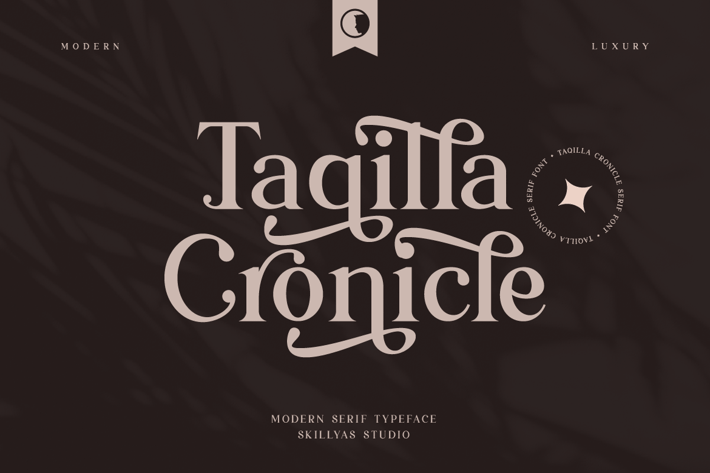
Taqilla Cronicle Playful Serif Font
Taqilla Cronicle is a bold and distinct-looking serif font.
It will add a luxury spark to any design project you want!
Character:
- Uppercase & Lowercase Letters
- Punctuation & Symbols Support
- PUA encoded Range Standard Alternative Style
- Ligature (Standard and Discretionary)